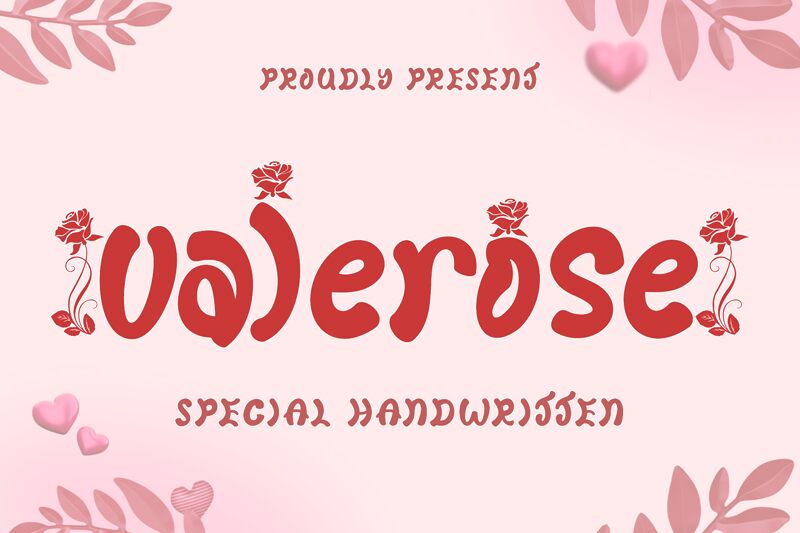
Valerose is a bold, captivating display font that commands attention. Its sweeping curves and powerful strokes evoke a sense of drama and sophistication.
The expansive, theatrical form of this font lends itself beautifully to headlines, logos, and other prominent design elements. Valerose's striking aesthetic makes it an excellent choice for fashion, editorial, and artistic applications where a bold, eye-catching presence is desired. This font's distinctive character and versatility offer designers a versatile typographic tool to elevate their projects with a touch of elegance and flair.
Valerose's impactful presence ensures it will leave a lasting impression, making it a compelling option for designers seeking to make a bold, memorable statement.